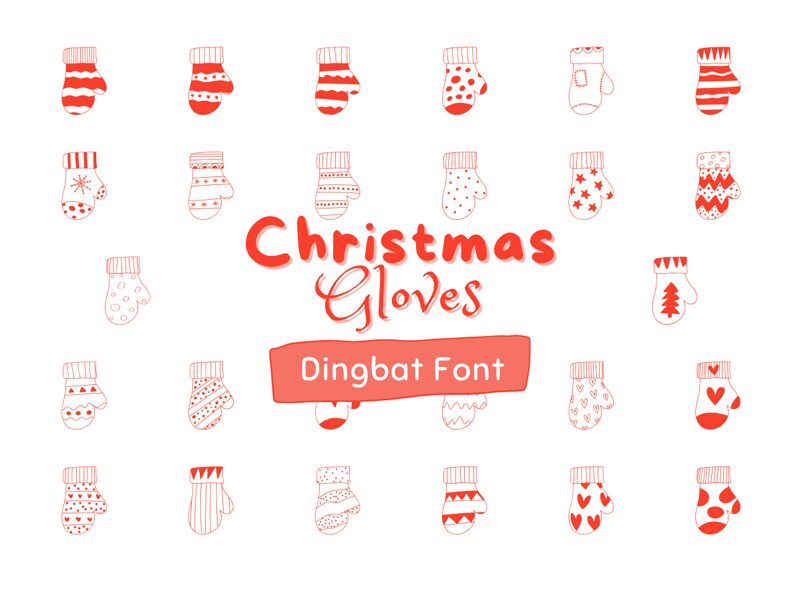
Christmast Gloves font by Tri Sakti Oktaviano is a free dingbats font with doodles of gloves and mittens included in its design. Other elements are also present to further enrich the overall look of this festive dingbats font: snowflakes, ribbons, and pine tree leaves. They follow an artsy drawing style full of curves with average thickness.